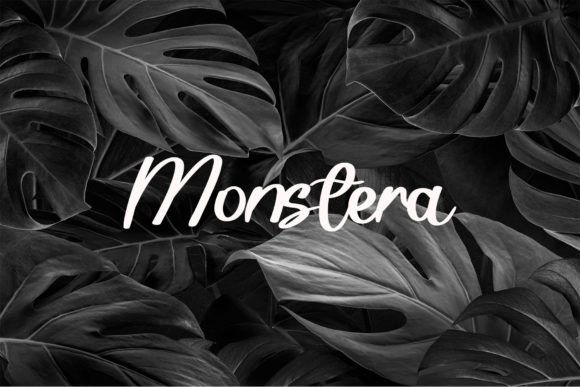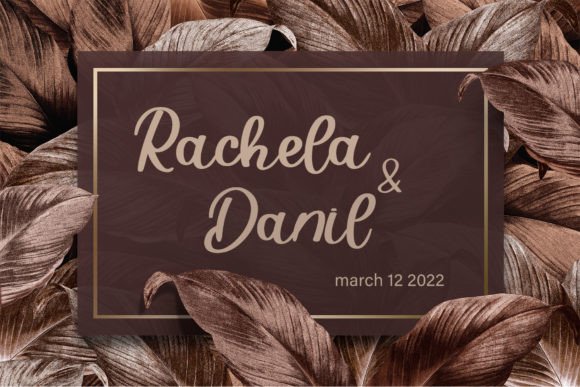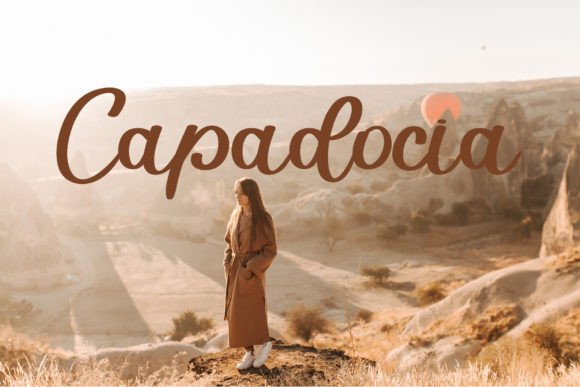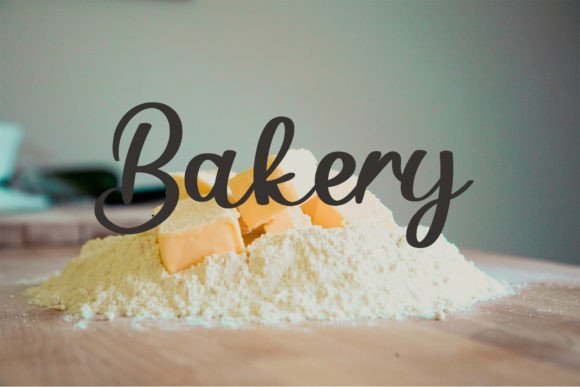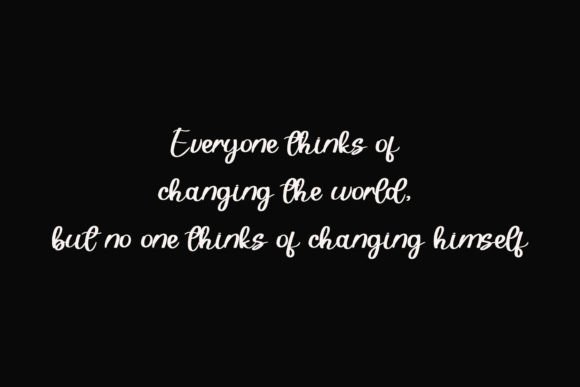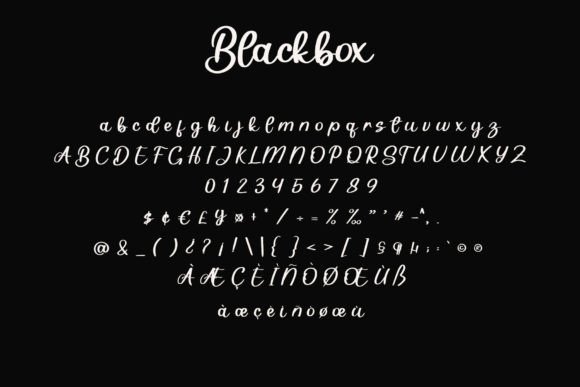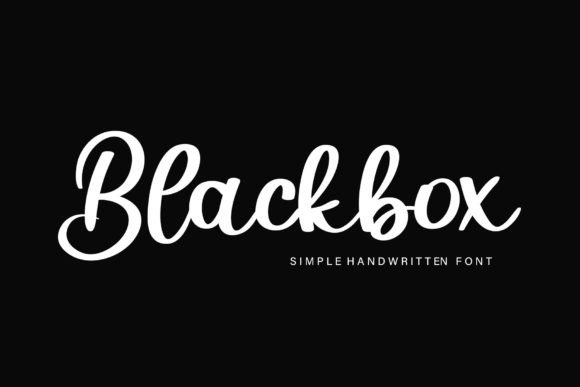
Unleash Your Creativity with Blackbox Font: A Stunning Script Font
Are you a designer, crafter, or DIY enthusiast looking for a font that can elevate your creations to the next level? Look no further than Blackbox Font, a gorgeous script font that’s both trendy and stylish. In this article, we’ll dive into the features and benefits of Blackbox Font, and explore how it can help you unleash your creativity and take your designs to new heights.
What is Blackbox Font?
Blackbox Font is a beautifully crafted script font that’s perfect for a wide range of design projects. Whether you’re creating social media graphics, blog posts, or marketing materials, this font is sure to make your designs stand out. With its elegant and flowing lines, Blackbox Font is ideal for adding a touch of sophistication and style to your creations.
Key Features of Blackbox Font
So what makes Blackbox Font so special? Here are just a few of its key features:
- Handmade with love: Blackbox Font is a handmade font, crafted with care and attention to detail to ensure that it’s both unique and beautiful.
- PUA encoded: Blackbox Font is PUA (Private Use Area) encoded, which means that you can access all of the glyphs and swashes with ease. This makes it easy to customize your designs and add your own personal touch.
- Trendy and stylish: Blackbox Font is a trendy and stylish font that’s perfect for designers and crafters who want to create modern and eye-catching designs.
Benefits of Using Blackbox Font
So why should you choose Blackbox Font for your design projects? Here are just a few of the benefits of using this amazing font:
- Elegance and sophistication: Blackbox Font adds a touch of elegance and sophistication to your designs, making them perfect for high-end brands and luxury products.
- Customization options: With its PUA encoding, Blackbox Font offers a wide range of customization options, allowing you to create unique and personalized designs.
Who Can Use Blackbox Font?
Blackbox Font is perfect for a wide range of designers and crafters, including:
- Graphic designers: Blackbox Font is ideal for graphic designers who want to create stunning visual content for their clients.
- Crafters: Blackbox Font is perfect for crafters who want to add a personal touch to their DIY projects, such as handmade cards, gift tags, and scrapbooking pages.
- Social media influencers: Blackbox Font is great for social media influencers who want to create eye-catching graphics and posts that stand out from the crowd.
In conclusion, Blackbox Font is a gorgeous script font that’s perfect for designers and crafters who want to elevate their creations to the next level. With its elegant lines, PUA encoding, and trendy style, Blackbox Font is sure to become a favorite in your font library. So why wait? Download Blackbox Font today and start creating stunning designs that showcase your creativity and style!